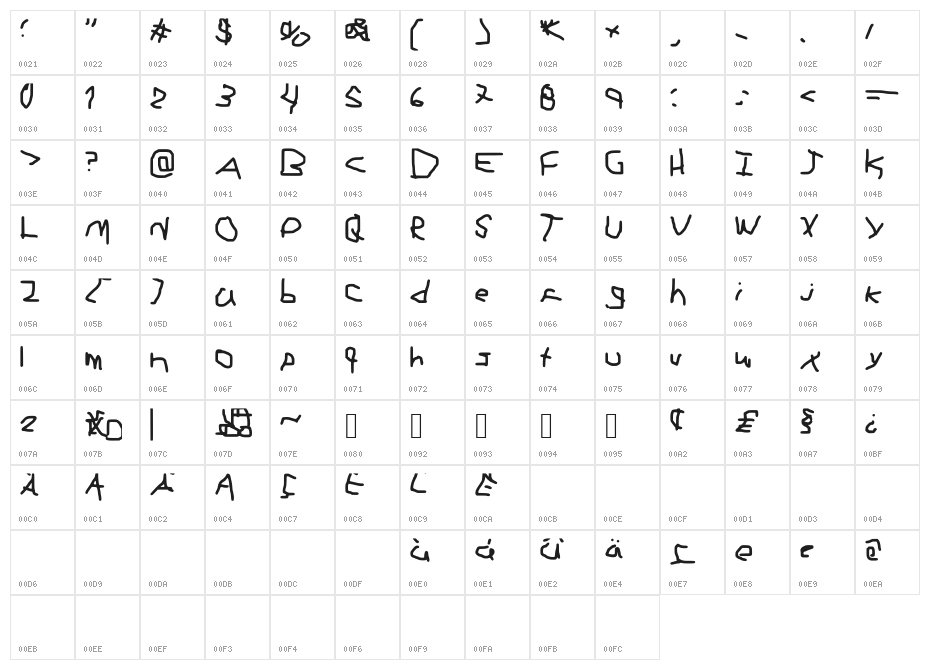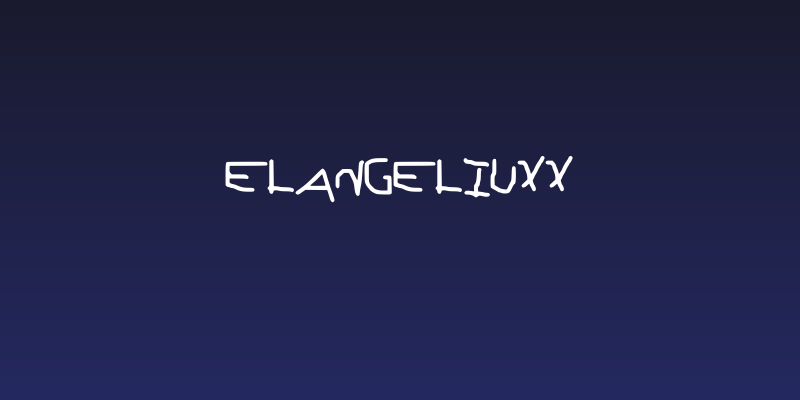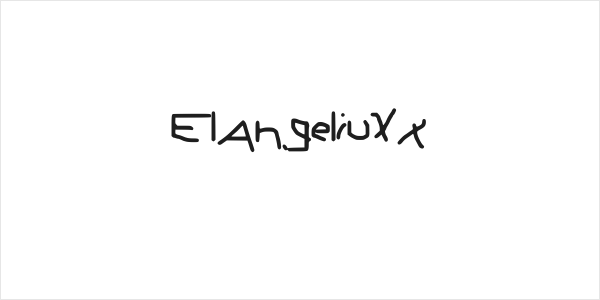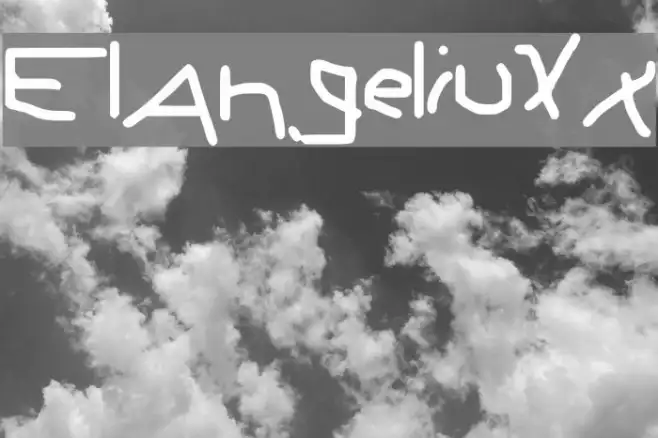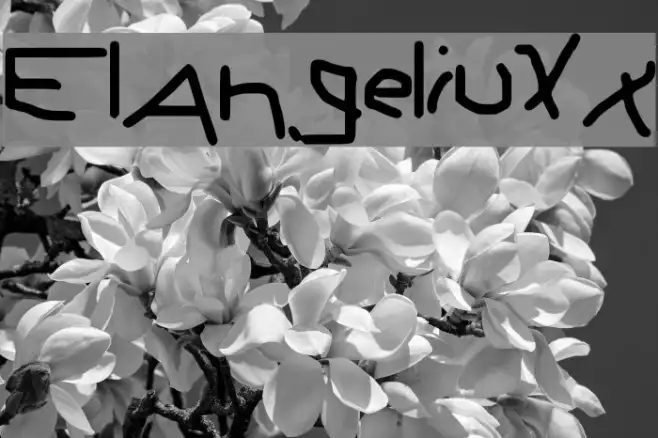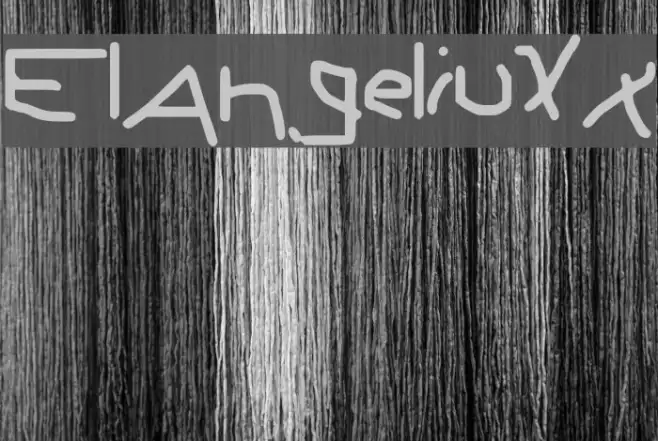
ElAngeliuXx Font
ElAngeliuXx Description
This font features a unique, hand-drawn style with irregular, playful strokes that give it a casual and artistic feel. The characters are unevenly shaped, with a mix of sharp angles and rounded edges, creating a dynamic and informal appearance. The uppercase and lowercase letters maintain a consistent style, while the numbers and special characters add to the quirky aesthetic. This font's distinctive look makes it stand out, offering a creative and unconventional option for various design projects.
| Use Case | Logos, Posters, Invitations |
| Proposed Projects | Ideal for creative projects such as children's books, artistic posters, casual branding, and playful invitations. |